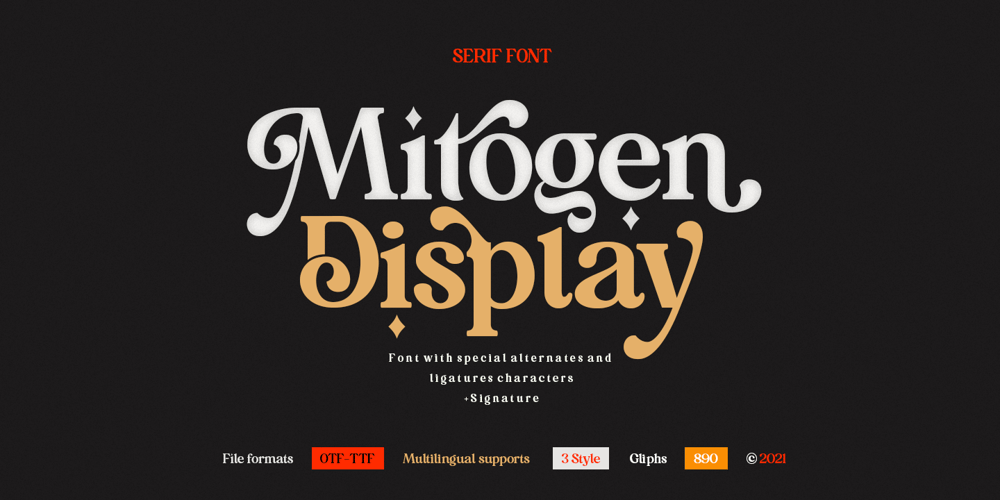
Mitogen Display Font Family was designed by Ambia and published by Areatype. Mitogen Display contains 3 styles and family package options. Mitogen Display is a very versatile font. Also available Mitogen Signature to help you mix and match it to fit your creative work in harmony. perfect for magazine images, to wedding invitations, to branding, poster design, and more.Files included:Mitogen Display RegularMitogen ItalicMitogen SignatureNumerals & PunctuationStylistic Alternates & LigaturesPUA Encoded CharactersThanks so much for looking, I really hope you enjoy it and please don’t hesitate to drop me a message if you have any issues or queries ๐